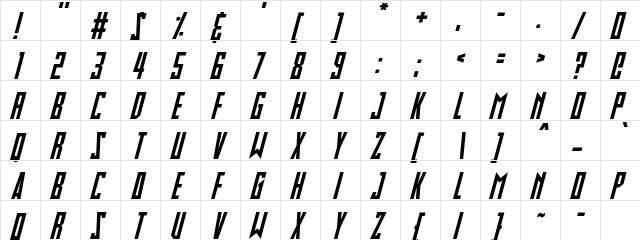
Slimbots Italic
Design Context for Slimbots Typeface
Slimbots is a composed and adaptable typeface that performs quietly and consistently across a wide range of design contexts. The slanted form adds forward momentum and visual energy.
Pro Tip: Use Slimbots for emphasis, pull quotes, and subheadings where its slanted energy can add rhythm to the layout.